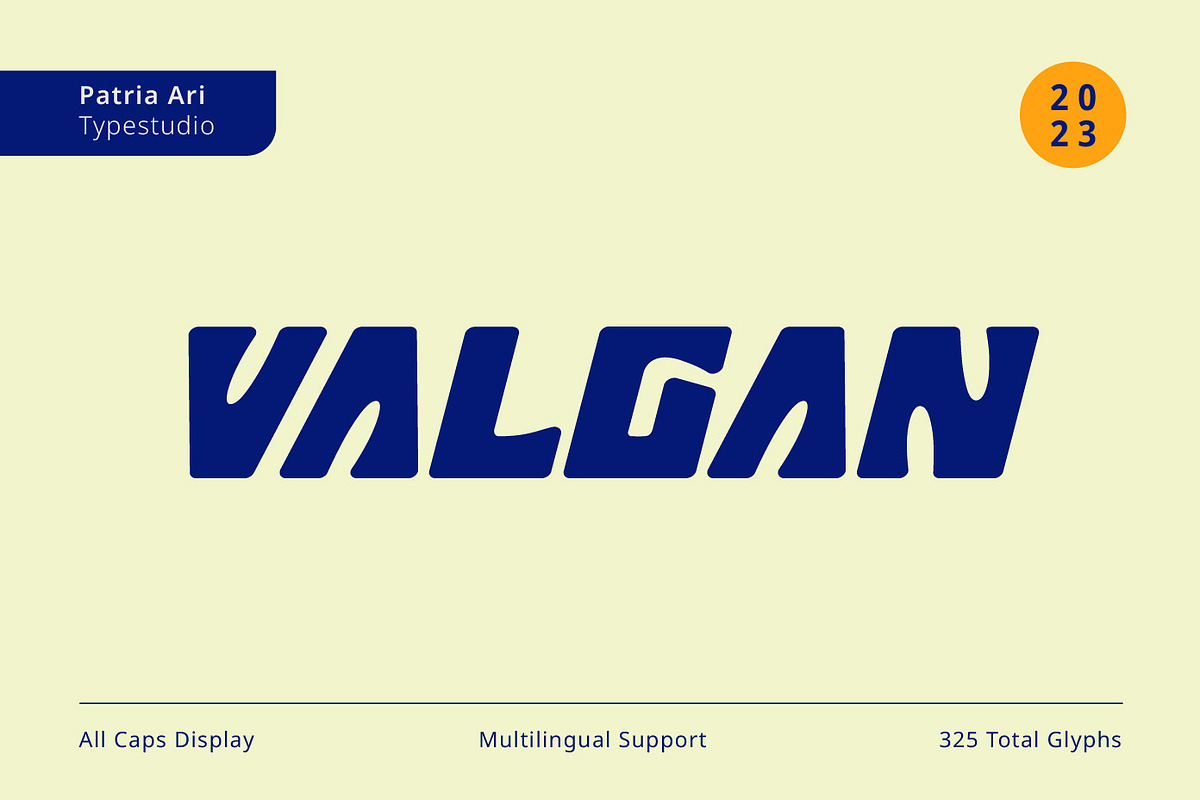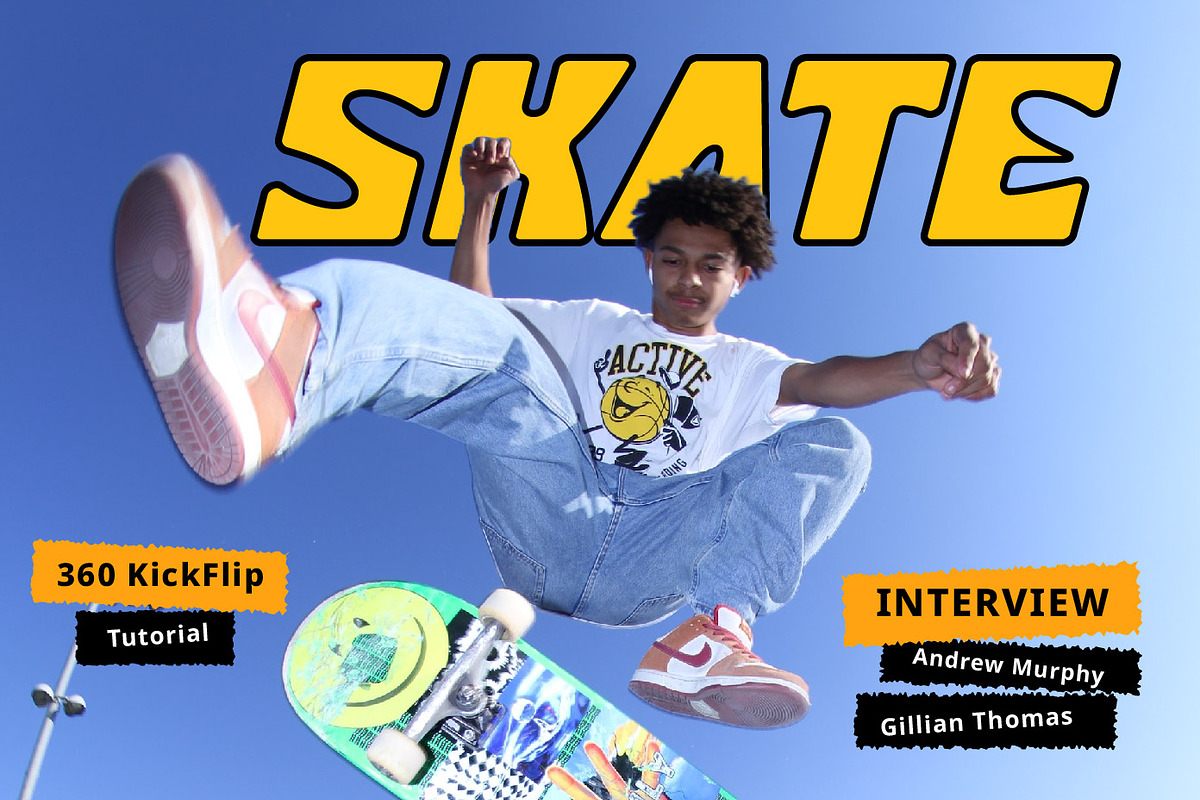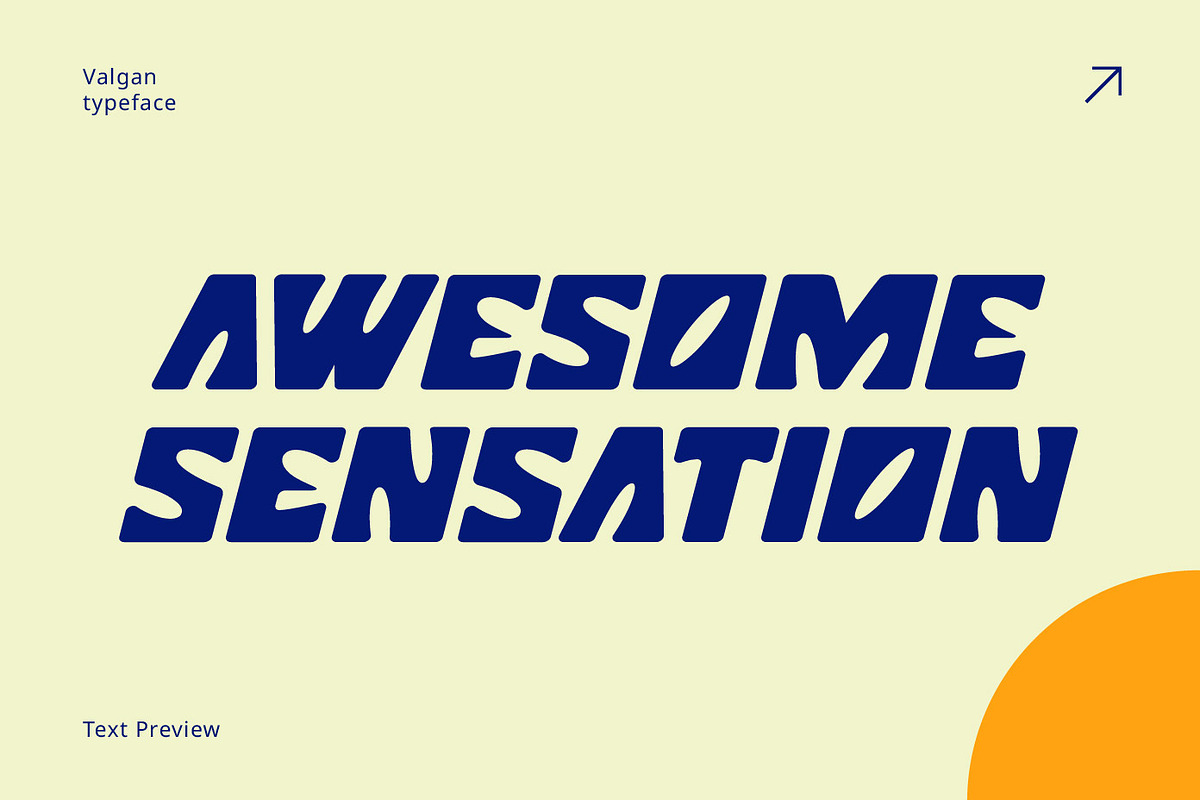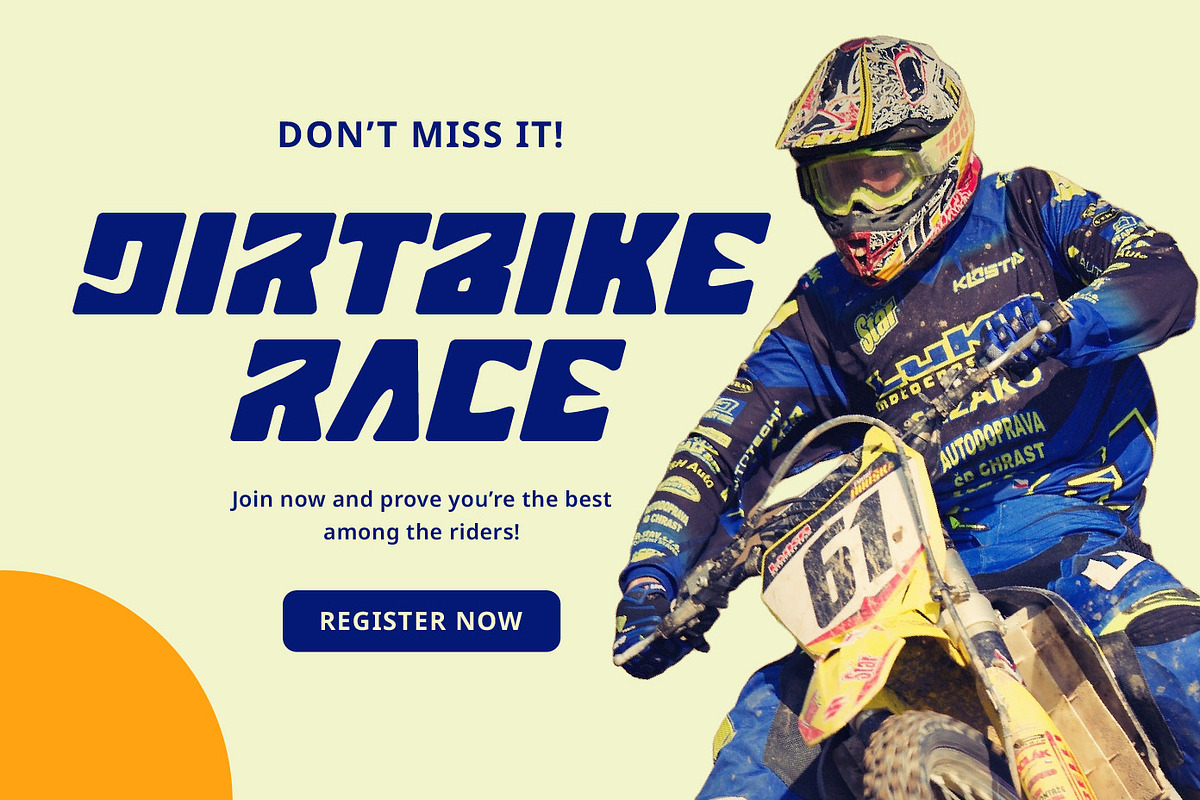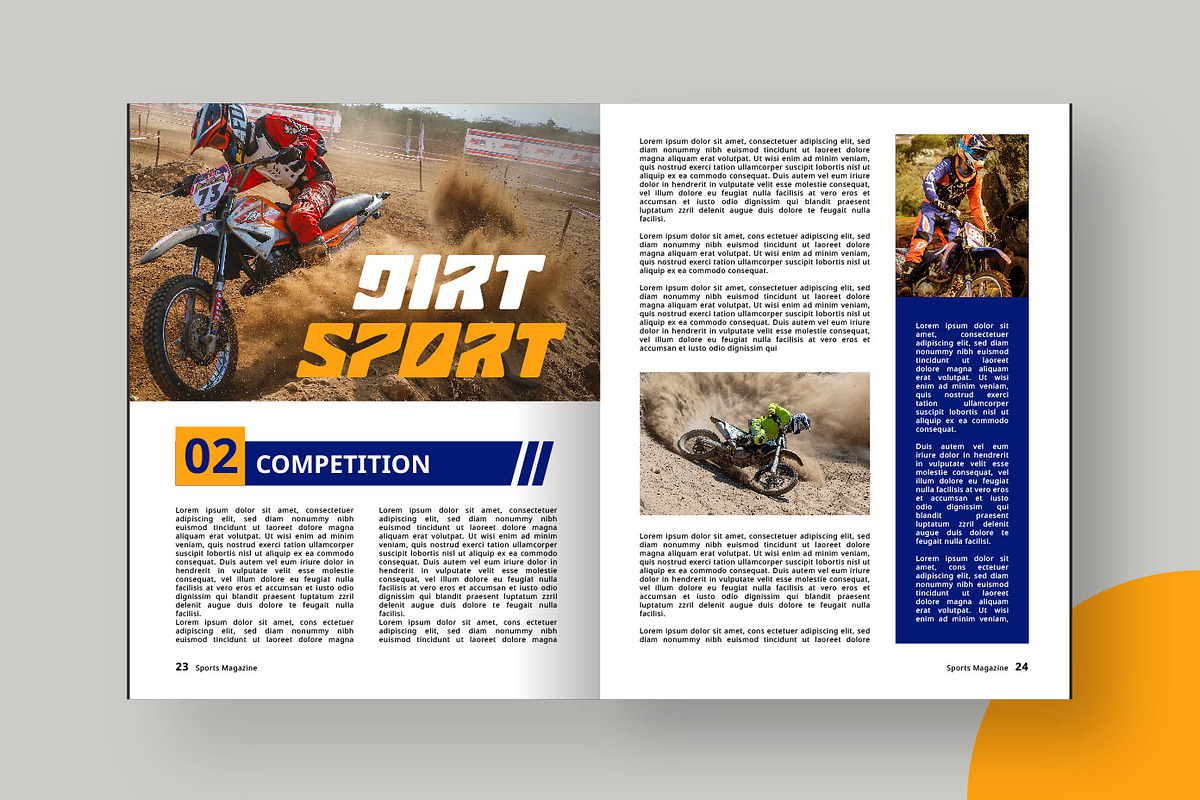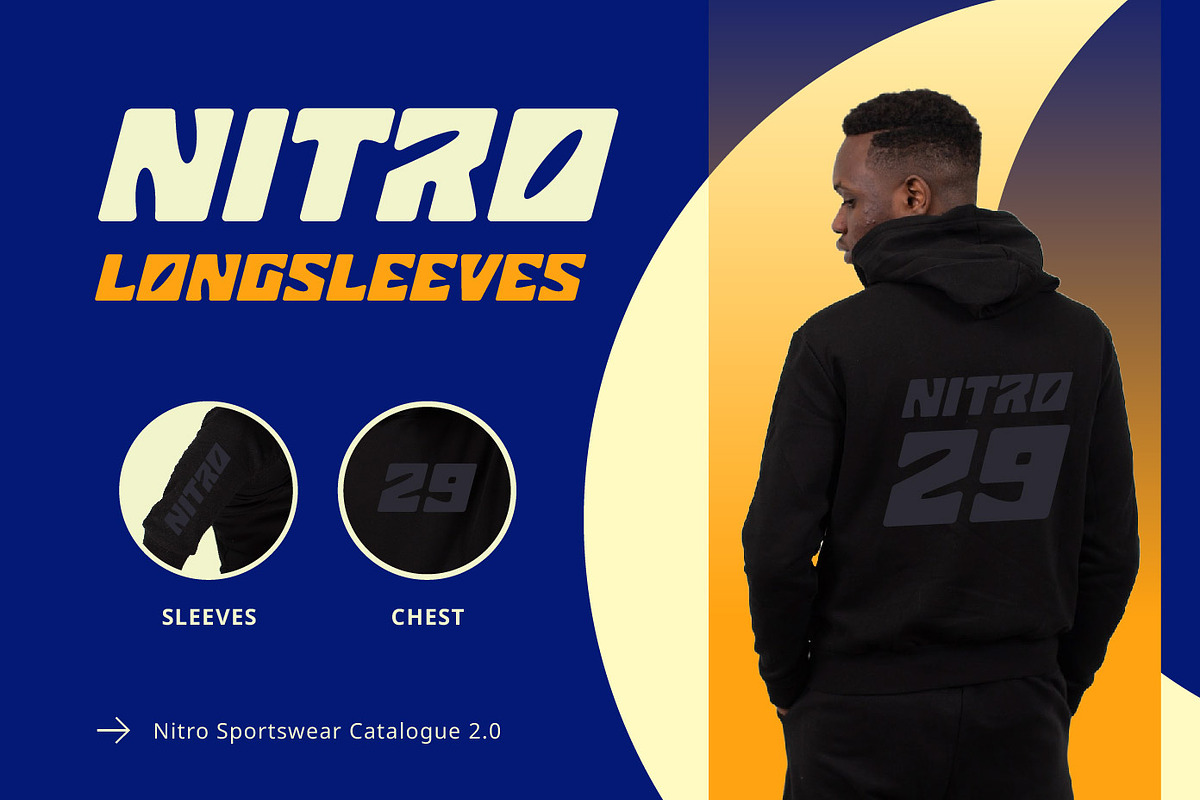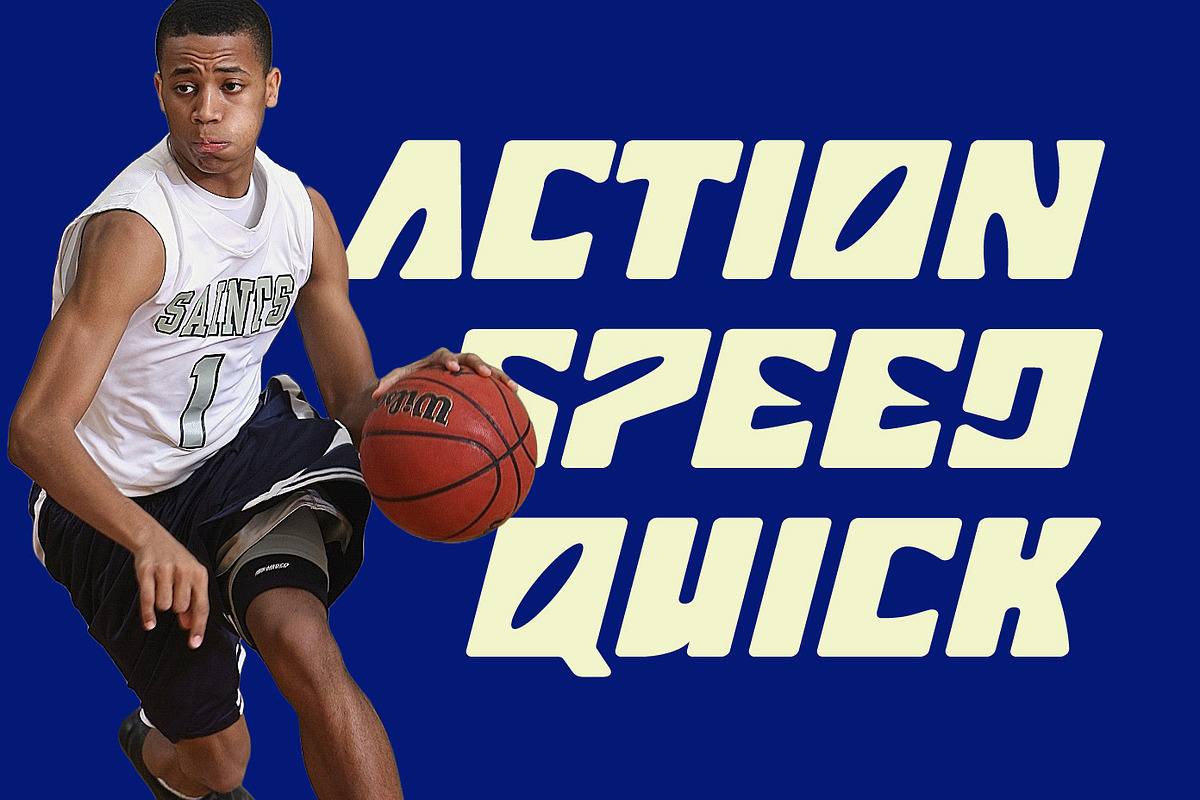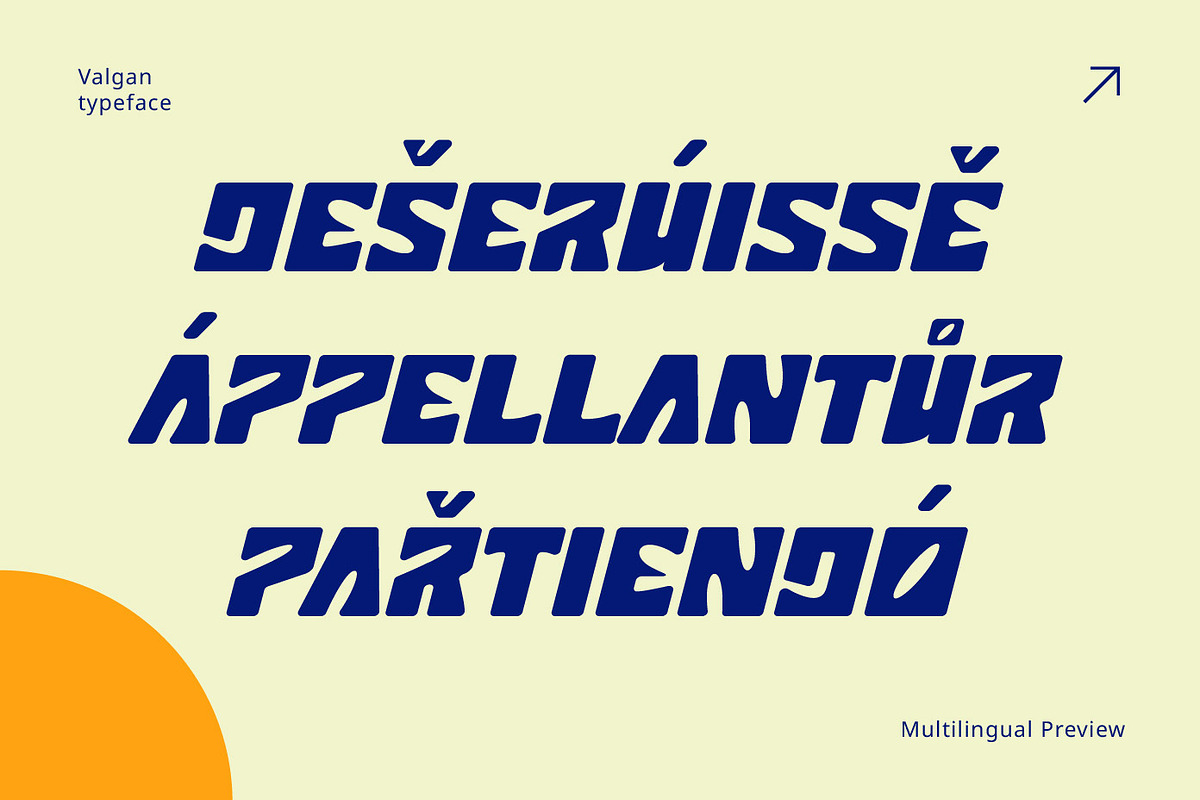
Valgan Display Font
Valgan is a bold, slanted, all-capital display font designed to energize sport-themed apparel and related content. Its dynamic style exudes power and motion, making it perfect for team logos, jerseys, posters, and event branding. Versatile and contemporary, Valgan ensures your designs command attention and convey the spirit of competition.